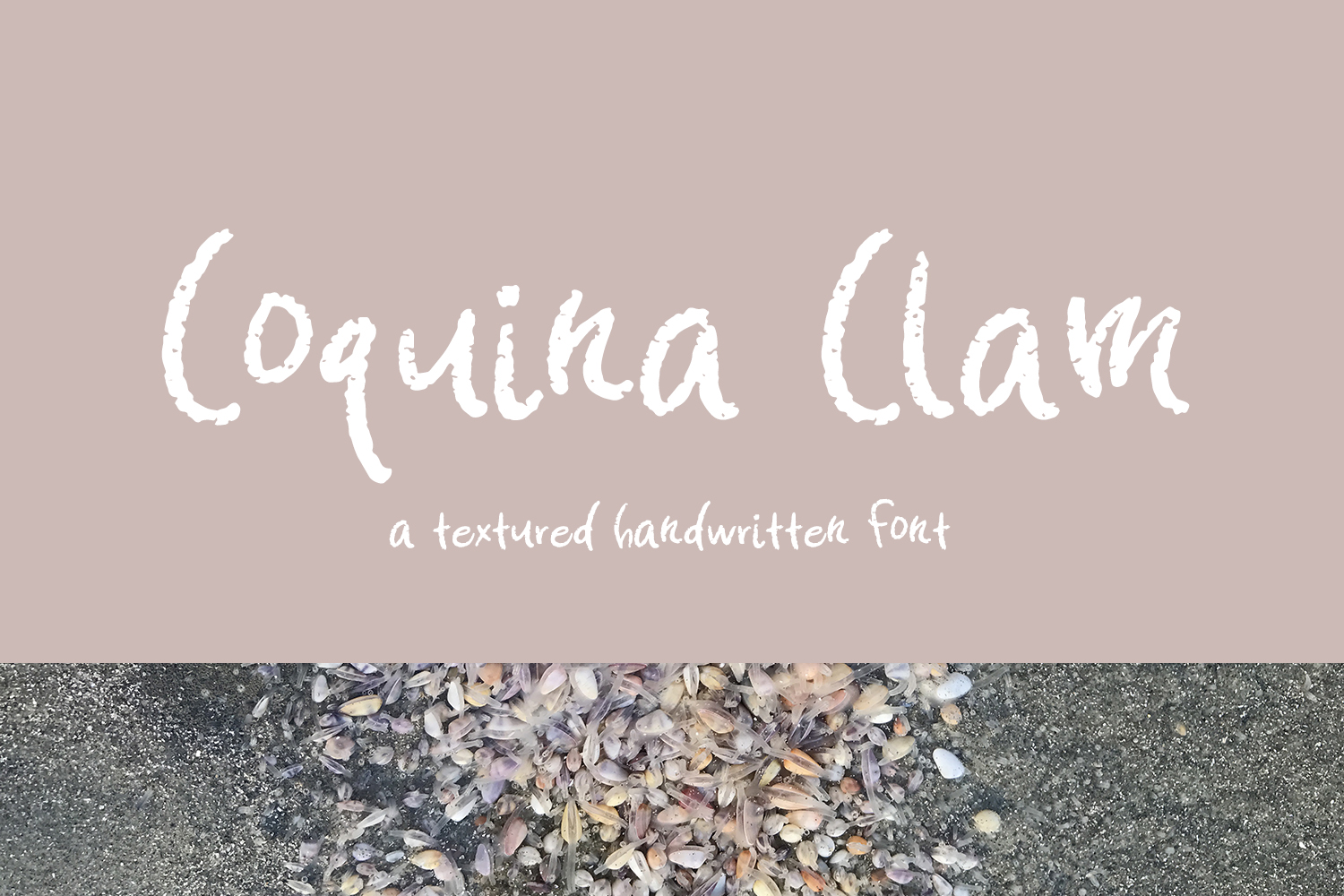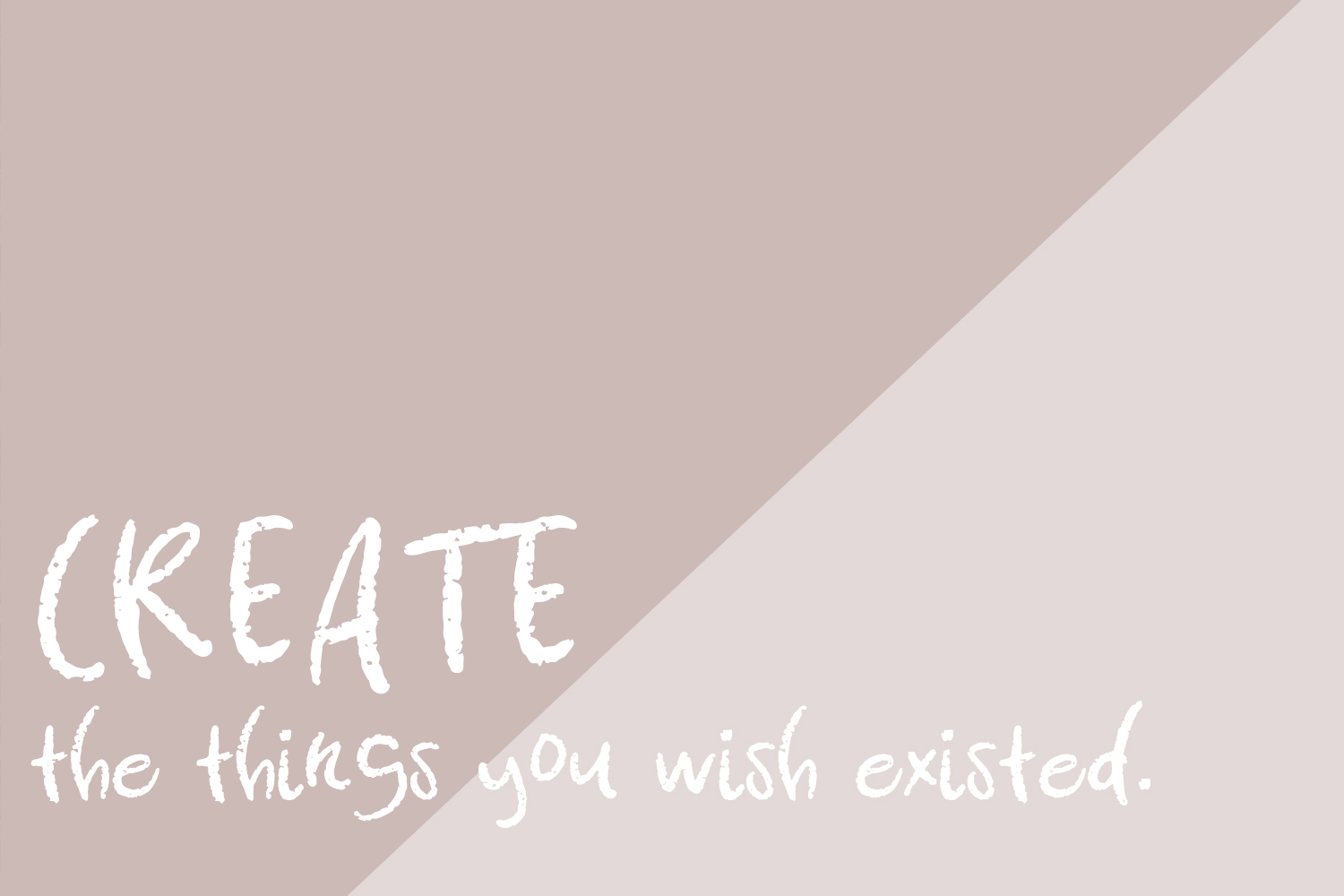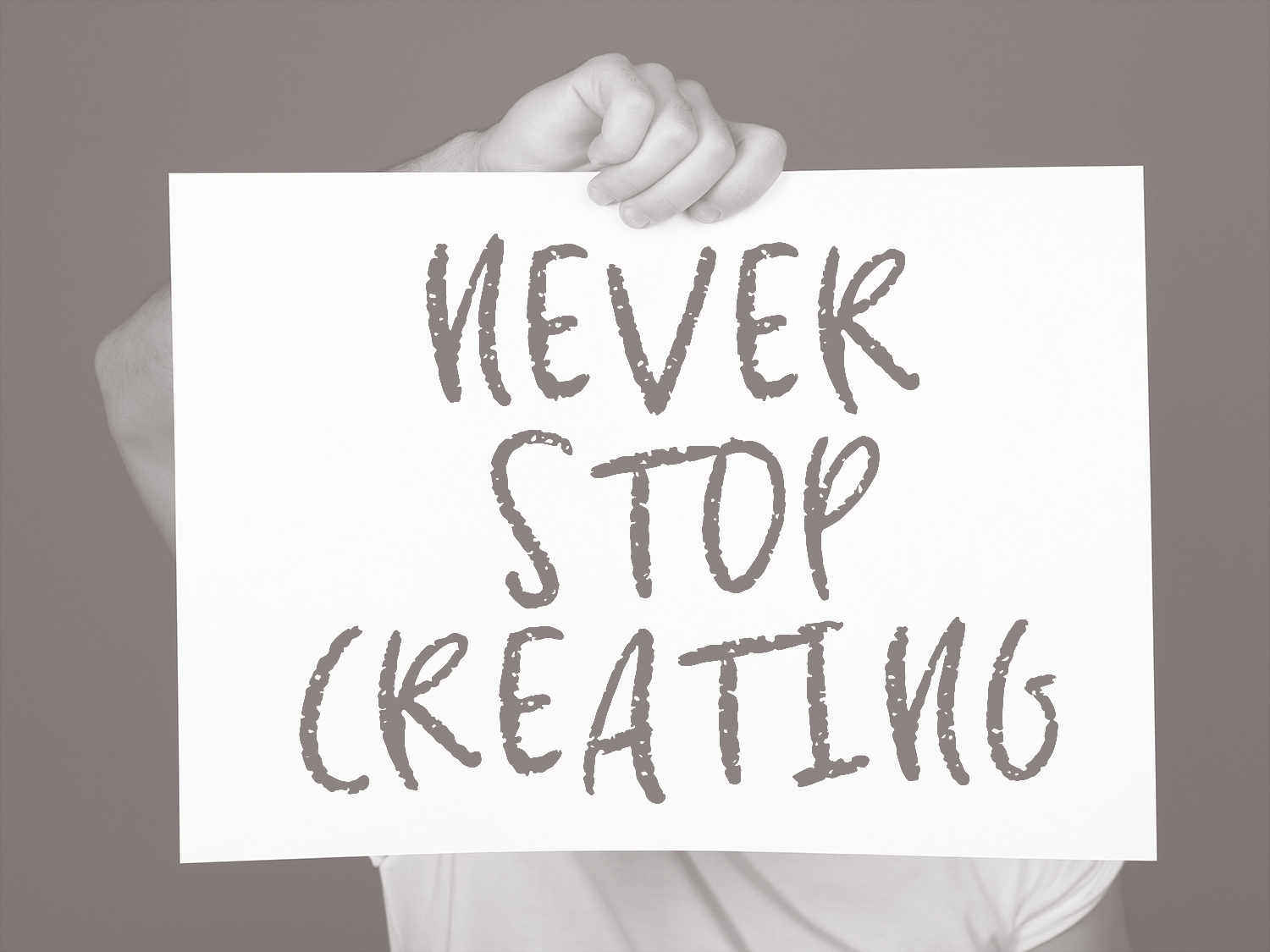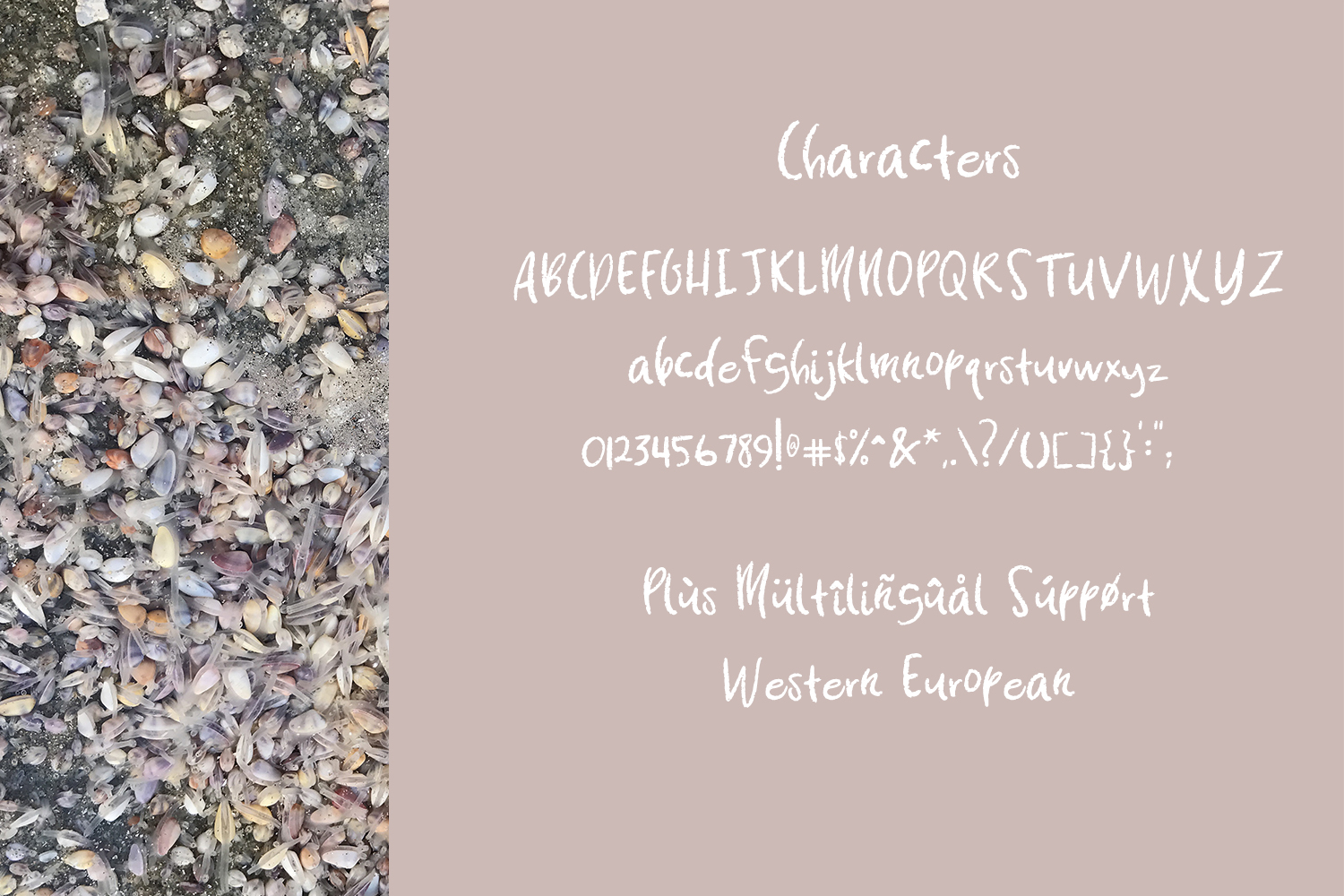
Coquina Clam Font
About Coquina Clam Font
My childhood beach days were spent digging in the sand, looking for coquina clams — so tiny & colorful, and in the future would serve quite literally as the foundation for something much bigger than itself. With the playfulness of childhood memories, and the texture reminiscent of coquina rock, the Coquina Clam font is a cute handwritten font, perfect for a variety of projects. This font would work well presented as chalky lettering.